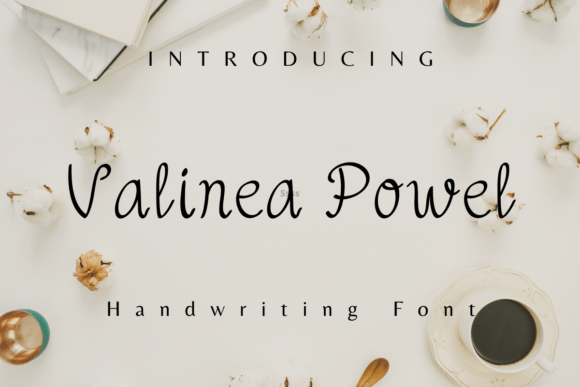
Step into a world of handwritten artistry and timeless allure with "Valinea Powel," an enchanting digital font that eloquently captures the essence of romanticism and sophistication. Crafted with intricate care, each letterform exudes an effortless elegance that breathes life into any creative project.
Immerse yourself in the beauty of its delicate curves and swashes, reminiscent of a bygone era where handwritten sentiments held a cherished place. With "Valinea Powel," your designs will transcend the ordinary, captivating your audience with a touch of nostalgia and undeniable charm.
Whether you're crafting heartfelt wedding invitations, elegant magazine layouts, or inspiring quotes that resonate with your soul, "Valinea Powel" effortlessly weaves a captivating narrative. Its versatility extends to branding and logo design, where it leaves an indelible mark of sophistication and distinction.
As you pour your heart into your creative endeavors, "Valinea Powel" becomes your trusted companion, whispering timeless elegance into each letter, stroke, and curve. Your designs will exude an air of authenticity, making a lasting impression that speaks volumes.
Elevate your design aesthetic to new heights with "Valinea Powel," a font that embodies the timeless essence of handwritten elegance. Its enchanting aura will transform your designs into captivating masterpieces, leaving an indelible mark of artistry and sophistication wherever it graces.